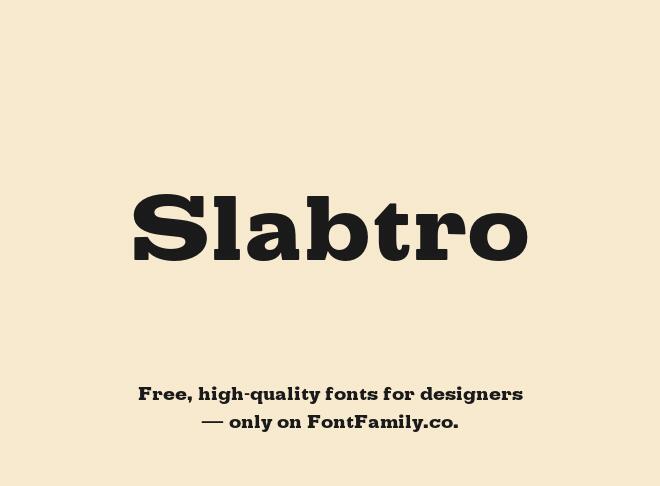
Slabtro Font
Slabtro Font, a creation of the Slabtro Foundry, is a unique blend of modern and retro aesthetic. This font, with its geometric shapes and bold strokes, is a nod to the past while keeping up with contemporary design trends. Its serif style offers a sense of authority and sophistication, while its display category suggests that it's perfect for headlines, posters, and other larger-than-life graphic designs. Slabtro Font can be compared to the likes of Rockwell but with a more modern twist. Its distinct character sets it apart, making it a great choice for designers looking to add a touch of retro-modern charm to their projects. This font is also licensed under Open Font License, making it free for use in both personal and commercial projects.